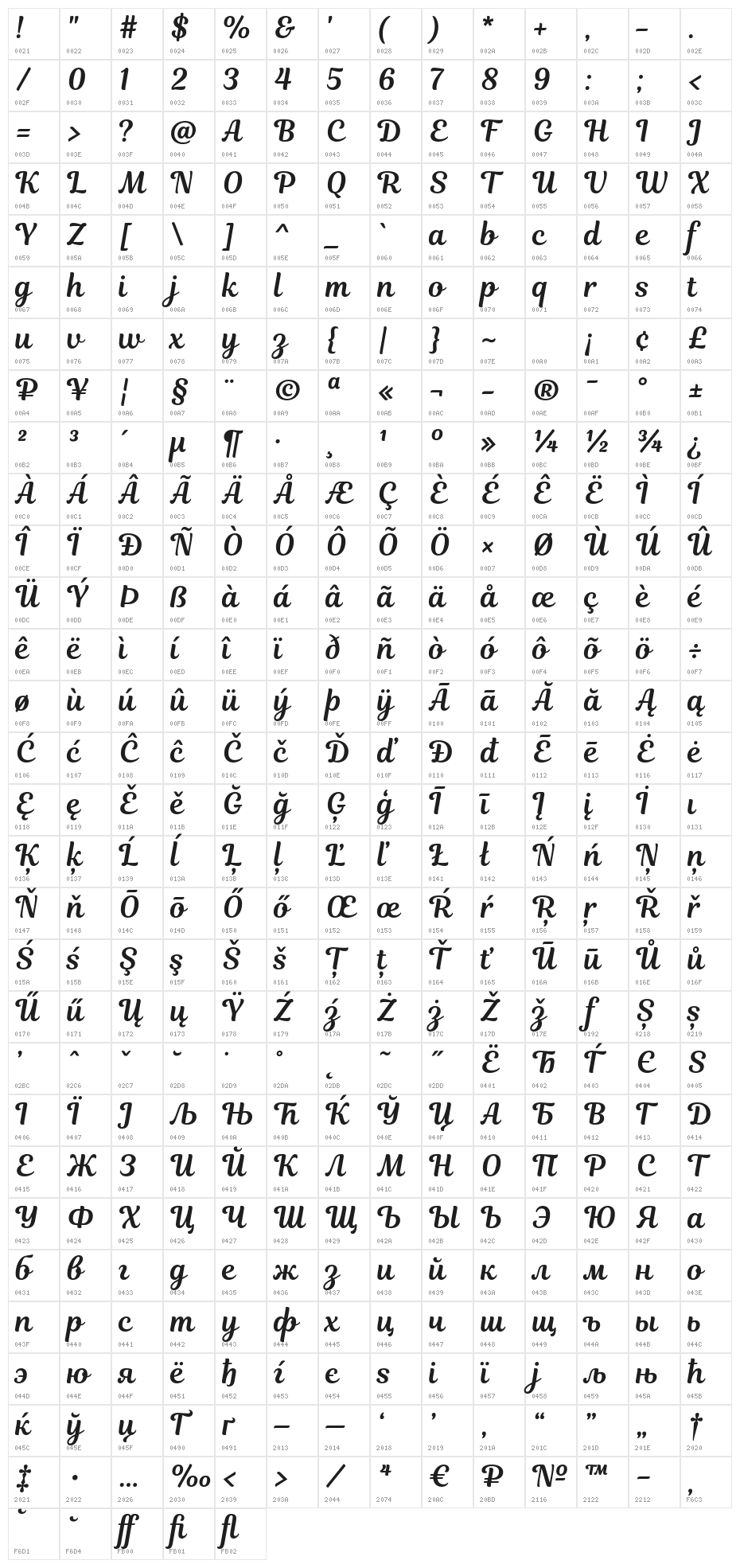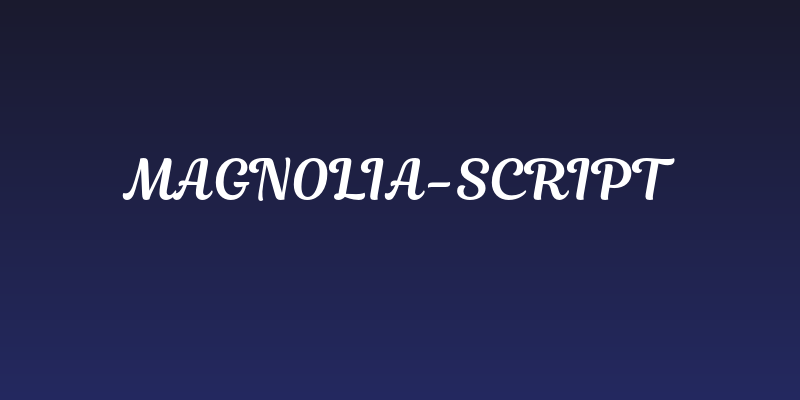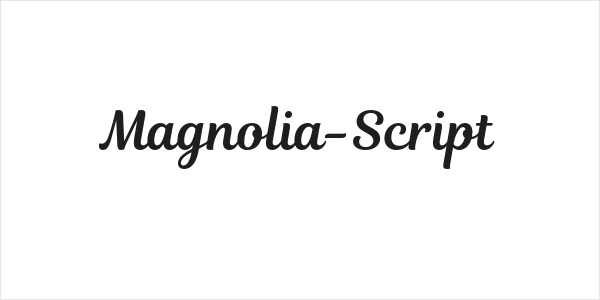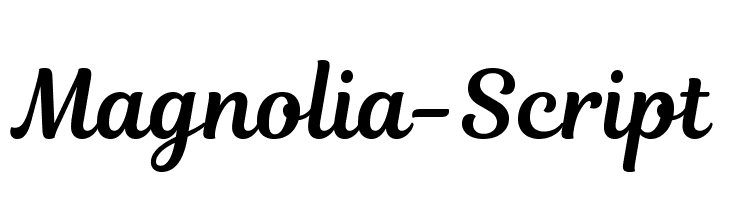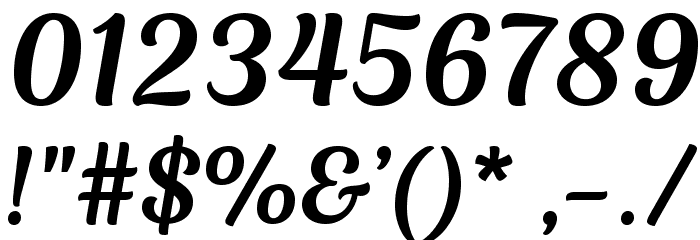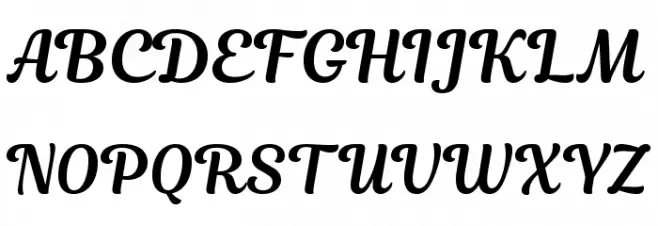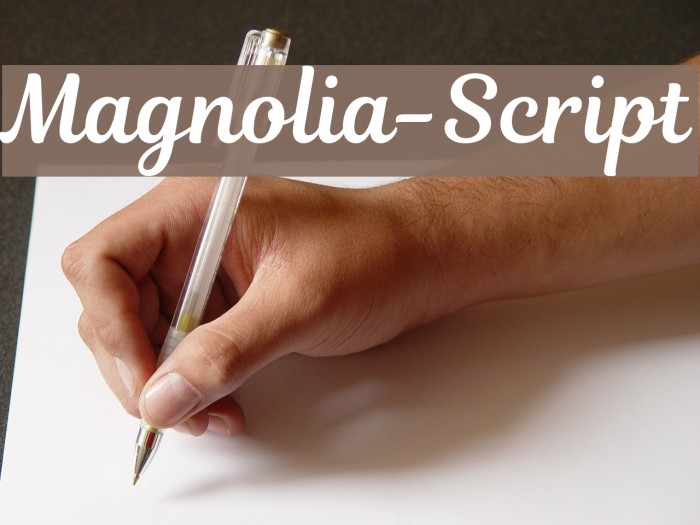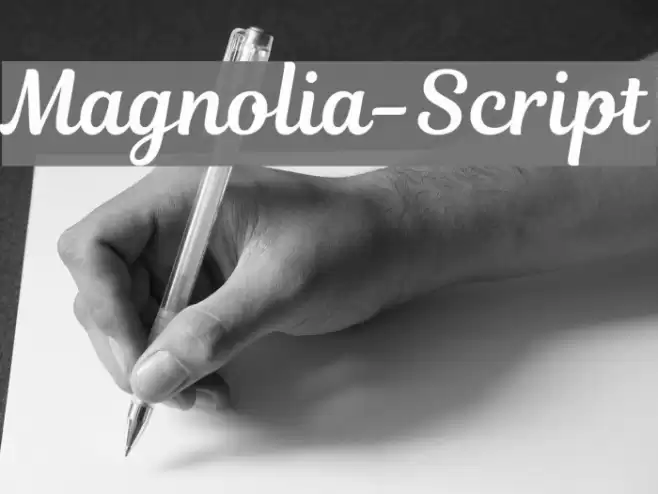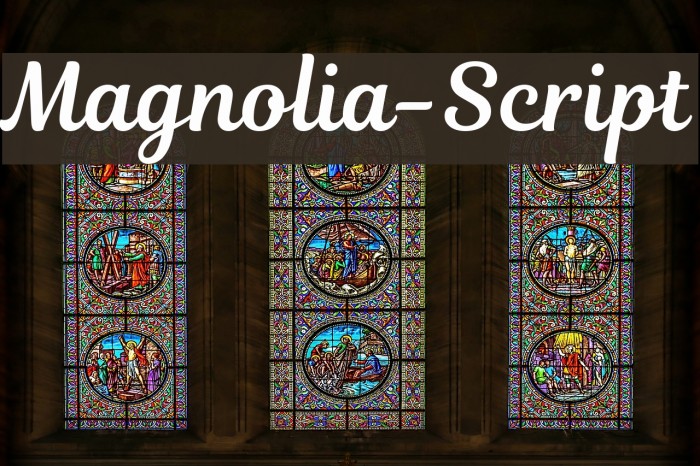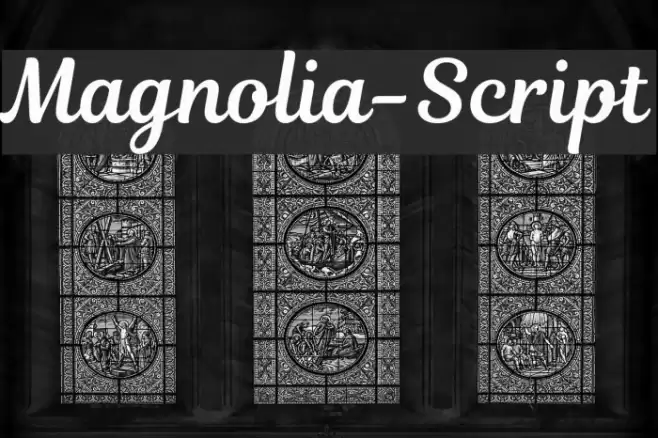
Magnolia-Script Font
Magnolia-Script Description
This elegant script font features a flowing, cursive style with smooth, rounded edges and a consistent stroke width. The characters are connected, creating a seamless and fluid appearance that mimics natural handwriting. The uppercase letters are slightly larger and more ornate, while the lowercase letters maintain a consistent height, enhancing readability. The numerals and special characters are designed to match the overall script style, ensuring a cohesive look across all text elements. This font exudes a sense of sophistication and grace, making it ideal for projects that require a personal touch.
| Overall Style | Elegant, Sophisticated |
| Use Case | Invitations, Greeting cards, Branding |
| Proposed Projects | Ideal for wedding invitations, greeting cards, elegant branding, and personal stationery. |